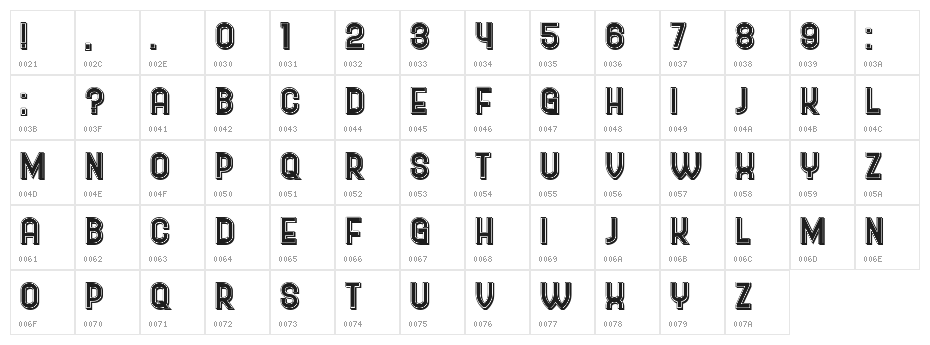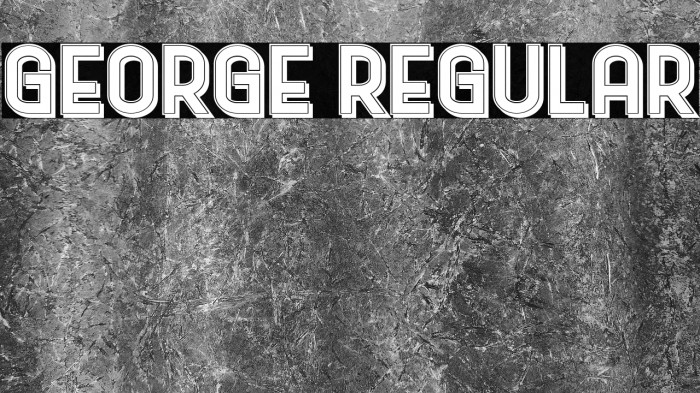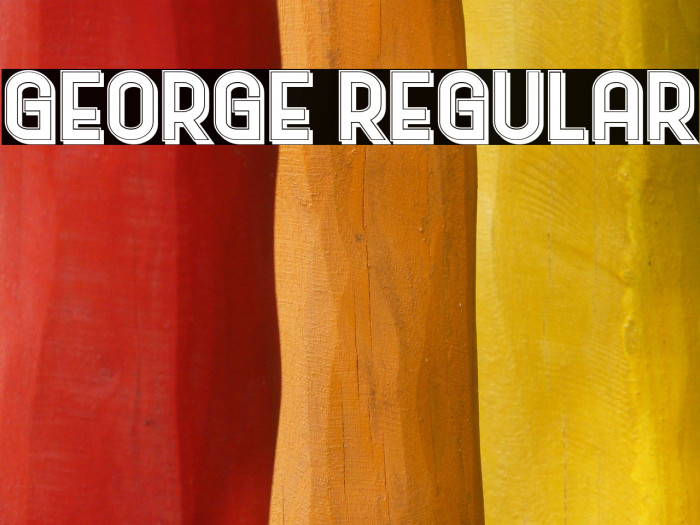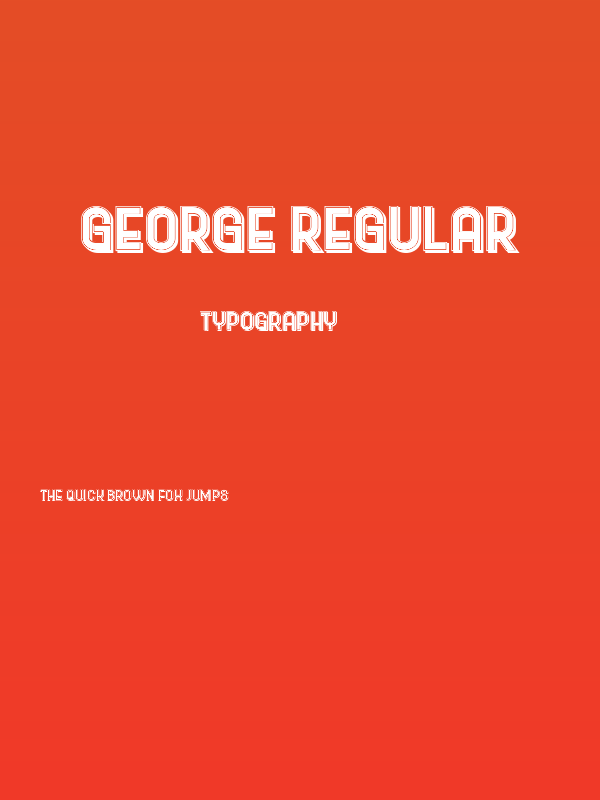
George Regular Font
George Regular Description
This font features a bold, geometric design with a strong presence. The characters are outlined, creating a striking visual effect that enhances readability while adding a modern flair. The uppercase letters are uniform in height, with sharp angles and clean lines, giving the font a structured and organized appearance. The numbers and special characters maintain this consistency, ensuring a cohesive look across all elements. The style is reminiscent of classic sans-serif fonts but with a contemporary twist, making it suitable for a variety of design applications.